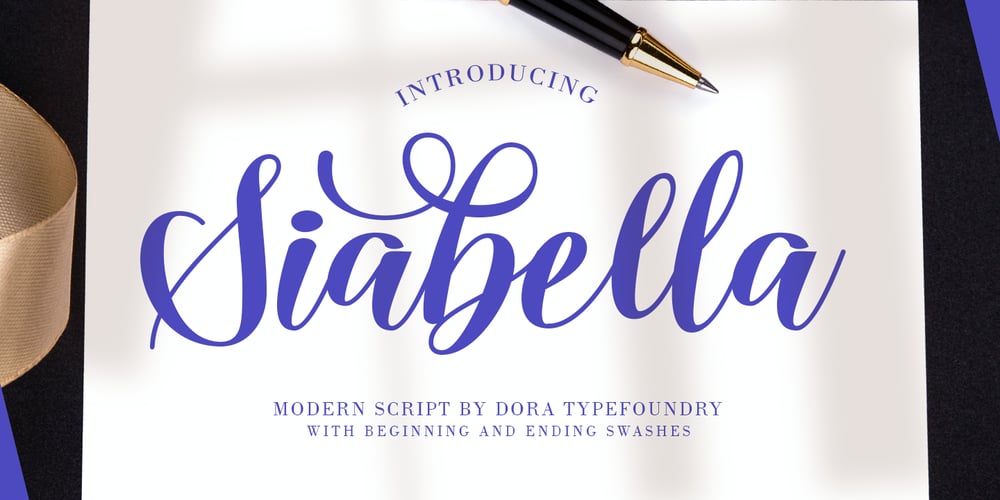
Siabella Script
Siabella Script font
Siabella Script Font Family was designed by Zahratul Laila and published by Dora Typefoundry. Siabella Script contains 1 styles and family package options. Introducing the charming Modern Siabella Script type of calligraphy inspired by love and joy!Siabella Script with various start and end swash, I hope you are interested in beautiful and aesthetic fonts to perfect your extraordinary project. This font can be used easily and simply because there are many features on in it to contain a complete set of lowercase and uppercase letters, various kinds punctuation marks, numbers, and multilingual support. The font also contains several binders and Stylistic Sets alternative styles for those of you who have software which is able to work OpenType (Photoshop / Illustrator / InDesign).Siabella Script is suitable for the market design developed today, this font has a model trendy, natural and soft, with this font you can use opportunities at every moment from one extraordinary way to highlight the celebration your best party, because this font will be a support for the purposes such as wedding invitations, parties, graduations, birthdays, meetings, and morePlease send a message if you have questions.Thank you !